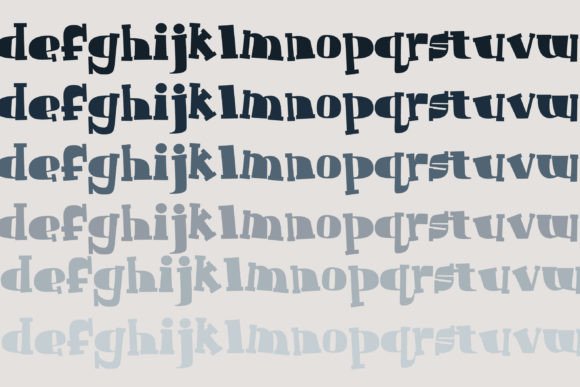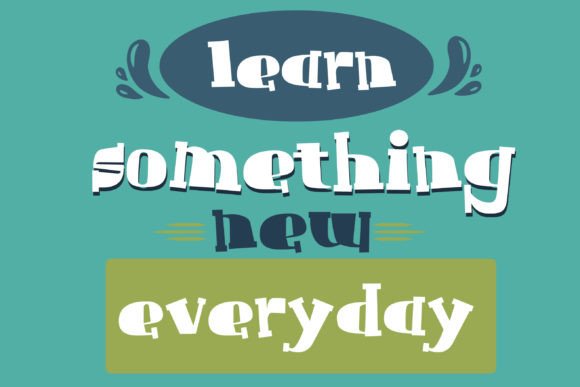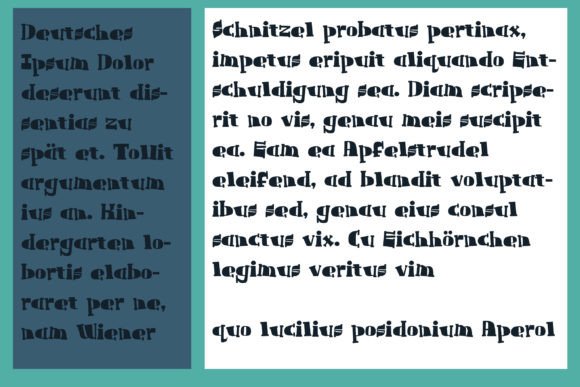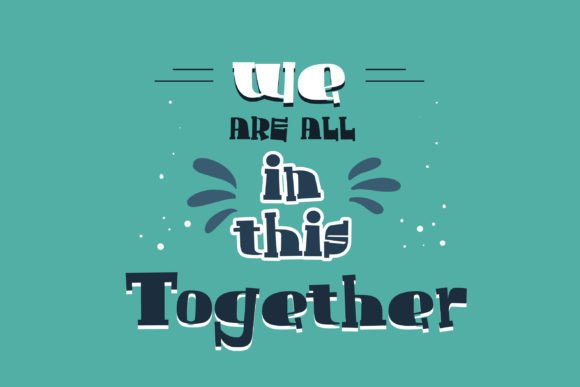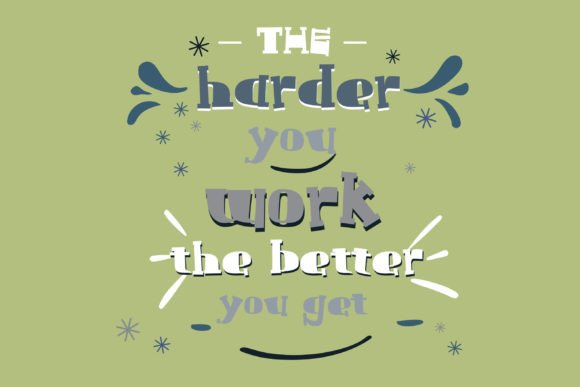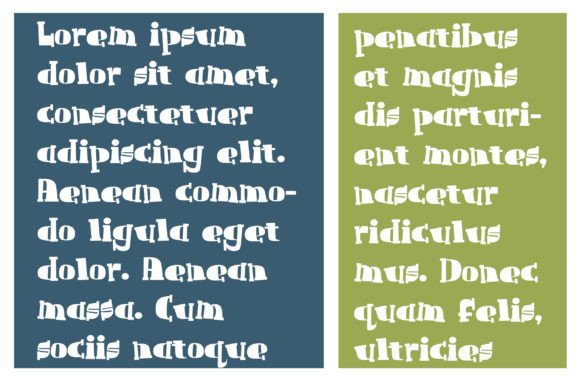
Introducing Alley Gator Font: The Perfect Blend of Playfulness and Elegance
Are you a designer or crafter looking for a unique font to add a touch of charm to your designs? Look no further than Alley Gator Font! This fun and playful font is sure to capture the attention of your audience with its distinctive mix of thick and thin lines, giving it a cool and elegant style.
The Unique Characteristics of Alley Gator Font
Alley Gator Font stands out from the crowd with its striking combination of bold and delicate lines. The font’s playful and fancy design makes it perfect for a wide range of creative projects, from invitations and greeting cards to logos and branding materials. The contrast between the thick and thin lines creates a visually appealing effect that adds depth and interest to any design.
What Makes Alley Gator Font So Versatile?
One of the best things about Alley Gator Font is its versatility. Whether you’re designing a children’s book, a craft project, or a professional marketing material, this font is sure to add a touch of personality and whimsy. Its elegant and refined style makes it suitable for more formal designs, while its playful and fun nature ensures it will also work well for more casual and creative projects.
Alley Gator Font is a dream come true for designers and crafters who are looking for a unique and eye-catching font to enhance their creations. Whether you’re a seasoned professional or a DIY enthusiast, this font is sure to inspire your creativity and help you produce stunning designs. With Alley Gator Font, you can:
- Add a touch of elegance and sophistication to your designs
- Create eye-catching headings and titles that grab attention
- Enhance your branding and marketing materials with a unique and memorable font
- Make your craft projects stand out with a playful and charming font
Tips for Using Alley Gator Font Effectively
To get the most out of Alley Gator Font, here are a few tips to keep in mind:
- Experiment with different font sizes and colors to create visual interest and hierarchy
- Combine Alley Gator Font with other fonts to create a unique and harmonious design
- Use the font’s bold and delicate lines to create striking headings and titles
- Don’t be afraid to get creative and try out new and innovative design ideas
In conclusion, Alley Gator Font is a fun and playful font that is sure to add a touch of charm and elegance to your designs. With its unique blend of thick and thin lines, this font is perfect for designers and crafters who are looking for a versatile and eye-catching font to enhance their creations. Whether you’re working on a professional project or a DIY craft, Alley Gator Font is sure to inspire your creativity and help you produce stunning designs.
- What type of font is Alley Gator Font?
- Alley Gator Font is a fun and playful font with a mix of thick and thin lines, giving it a cool and elegant style.
- Can I use Alley Gator Font for my craft projects?
- Absolutely! Alley Gator Font is perfect for crafters who are looking for a unique and eye-catching font to enhance their creations.